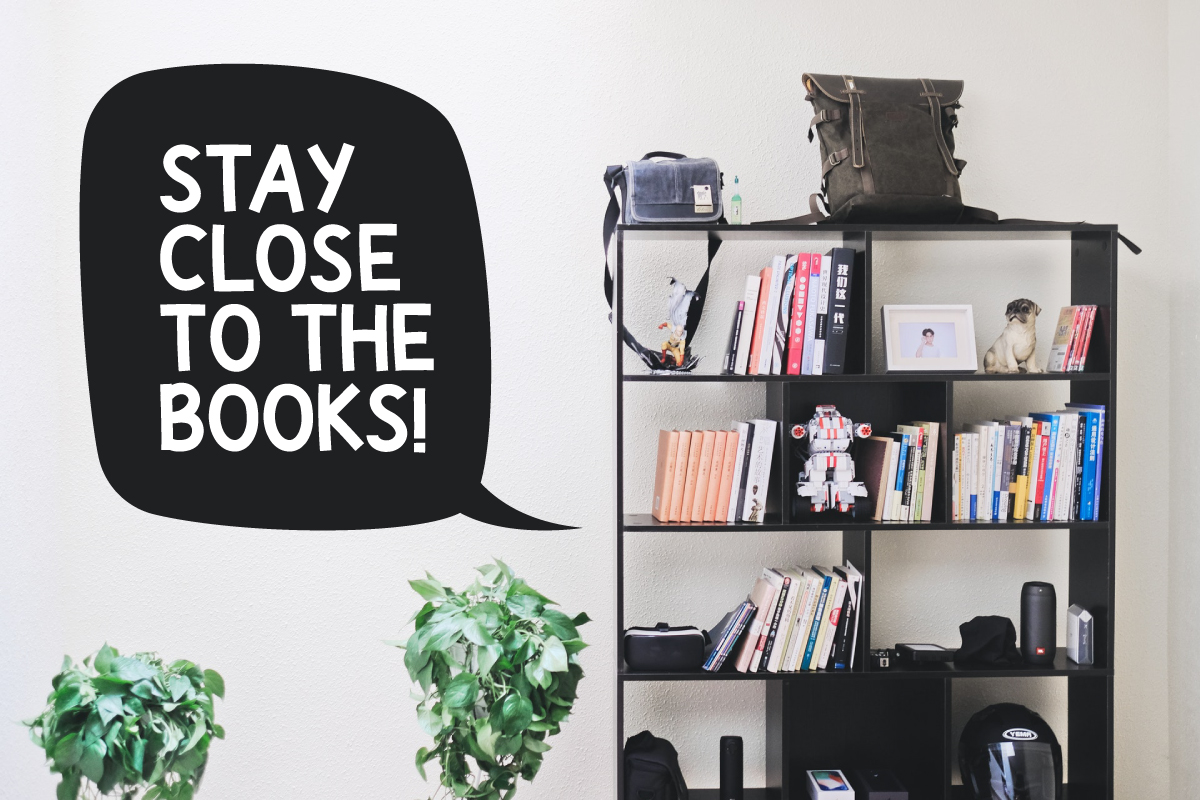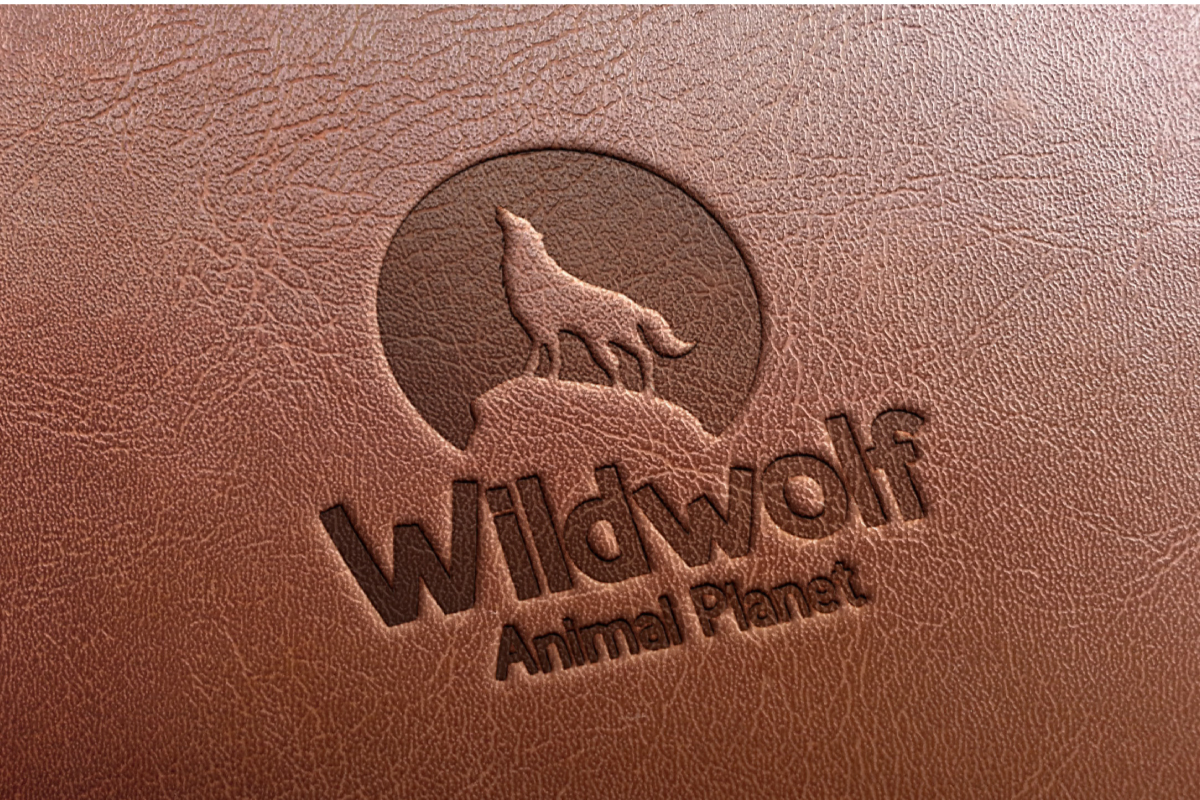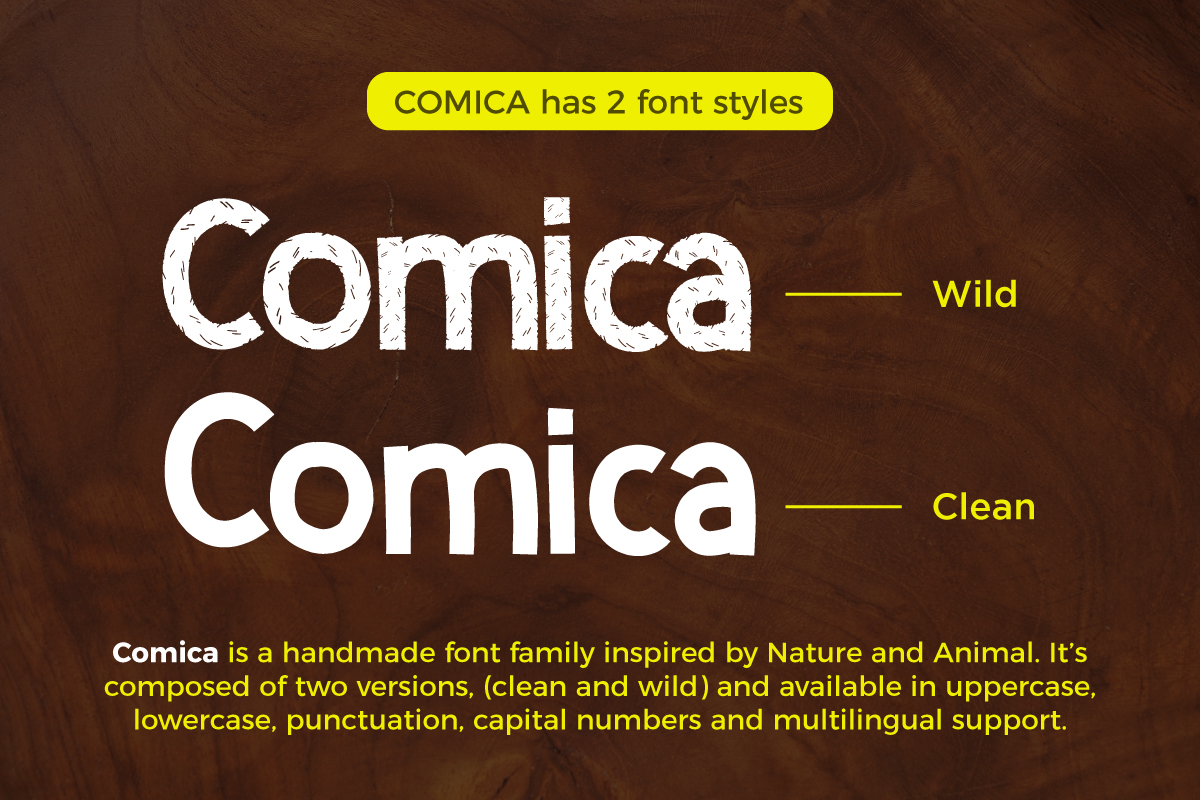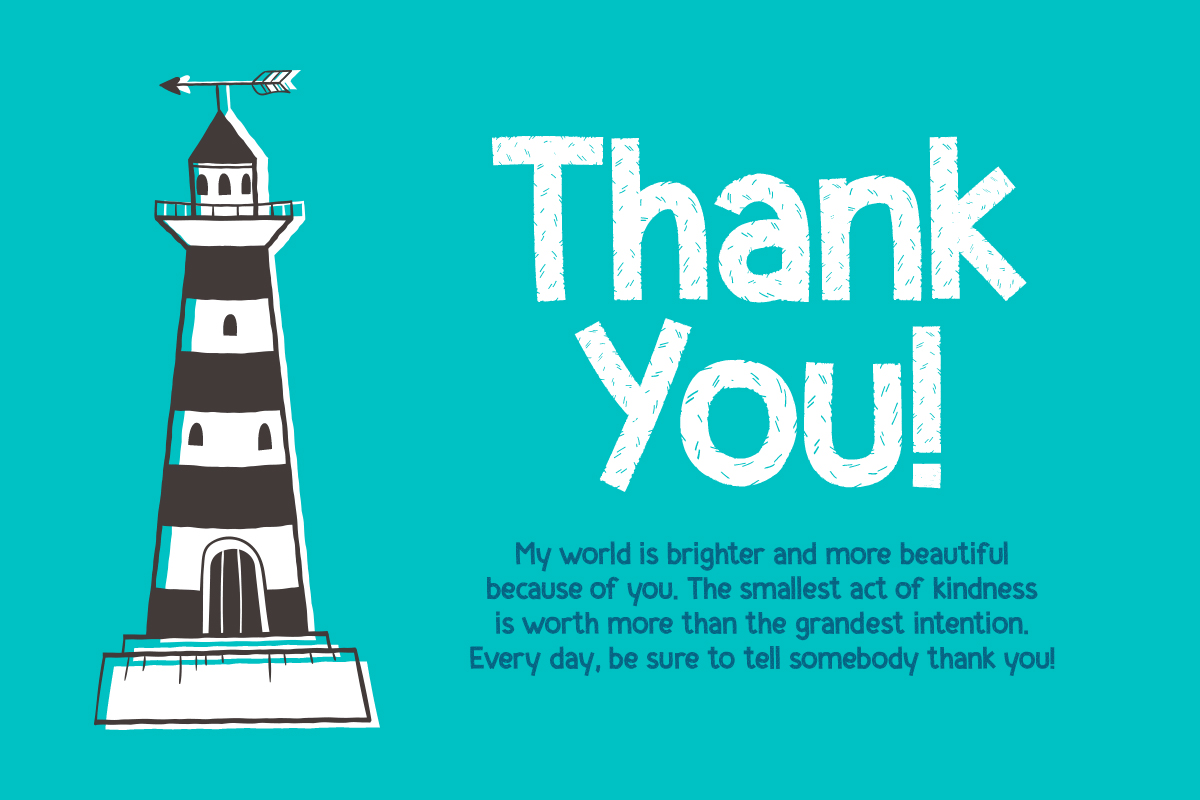
Unleashing the Playful World of Comica Font
Do you remember the joy of discovering a new font that perfectly captures the essence of your creative vision? For me, that moment came when I stumbled upon the Comica Font – a delightful typeface inspired by the natural texture of wood. Its playful charm immediately resonated with me, and I knew I had to share it with fellow designers.
Comica Font is designed specifically with children in mind, offering a range of whimsical and educational opportunities for young minds. With two variations – regular and wild – this versatile font is perfect for creating engaging storybooks, educational materials, and even children’s branding. As a designer, I can appreciate the value of Comica Font in bringing a sense of wonder and curiosity to our work.
Comica Font Key Features
- Unique Characteristics: Comica Font features a unique blend of comic book-inspired aesthetics and modern typography, making it perfect for graphic novels, comics, and children’s books.
Comica Font Review
When I first laid eyes on Comica Font, I was struck by its playful, whimsical vibe ✨. The font’s unique blend of hand-drawn and digital elements creates a truly one-of-a-kind aesthetic that’s perfect for adding a touch of personality to children’s books, comic strips, and other projects that require a lighthearted feel.
The font’s versatility is another major strength ✨. Comica Font comes in a range of weights, from light to bold, allowing designers to tailor the font to their specific needs. The font also includes a variety of stylistic sets, including alternate characters and swashes, which can be used to add visual interest and create a sense of continuity.
- ⚠️ Limited support for complex scripts and languages, making it less suitable for global audiences
- ⚠️ May not be the best choice for projects that require a high level of professionalism or sophistication
- ⚠️ Some users may find the font’s playful feel to be too juvenile or distracting
Overall, Comica Font is a fun and versatile font that’s perfect for designers looking to add a touch of whimsy to their projects. While it may not be suitable for every project, it’s a great choice for anyone looking to create a playful, engaging aesthetic.
Tips for Getting the Most Out of Comica Font
Comica Font is best used for creating playful, cartoon-inspired designs. To get the most out of it, try combining it with bold colors and simple shapes.
Comica Font is commonly used for:
– Children’s book illustrations
– Cartoon-style logos
– Playful social media graphics
– Whimsical advertising materials